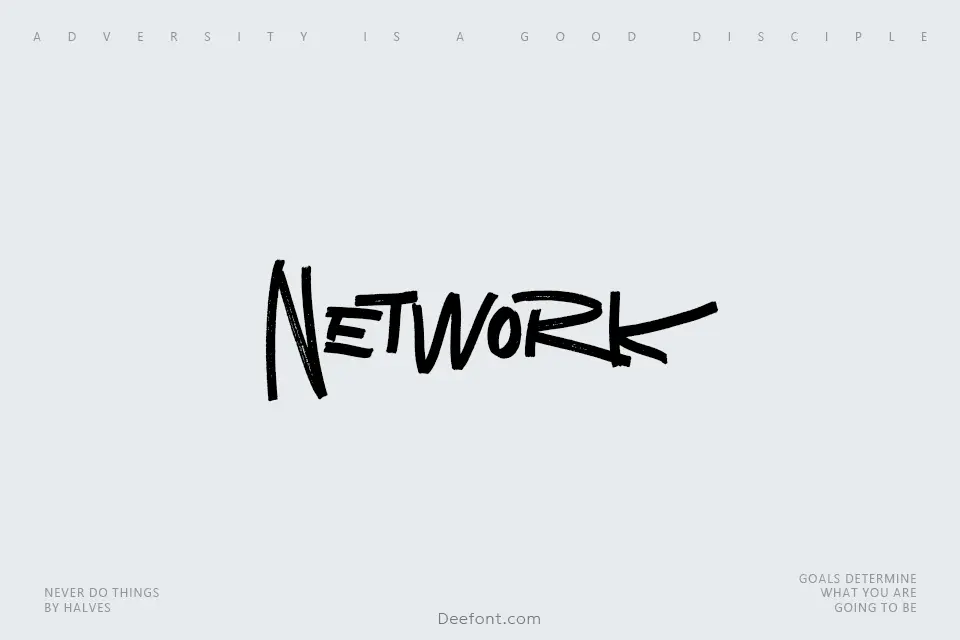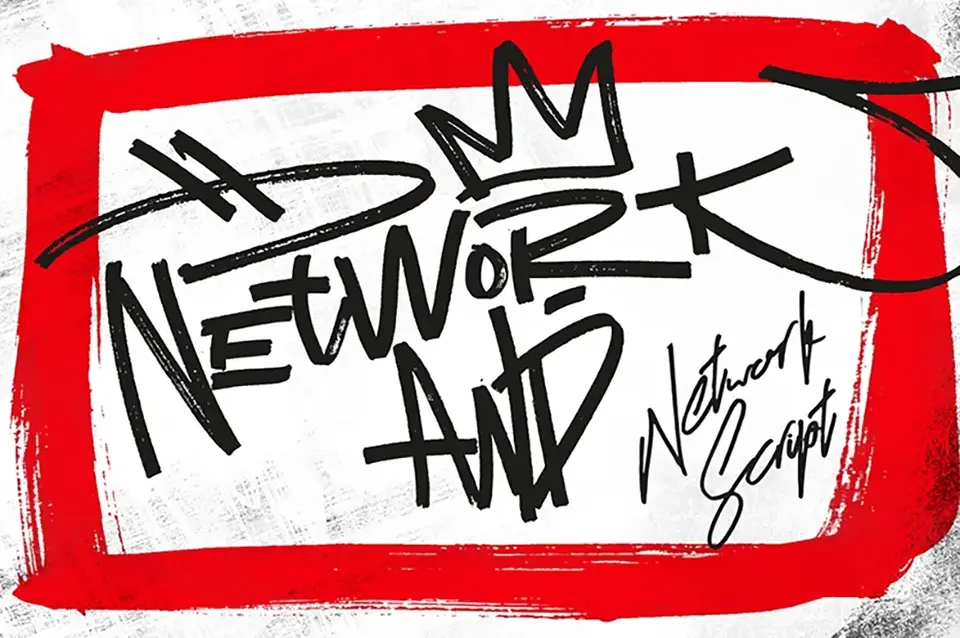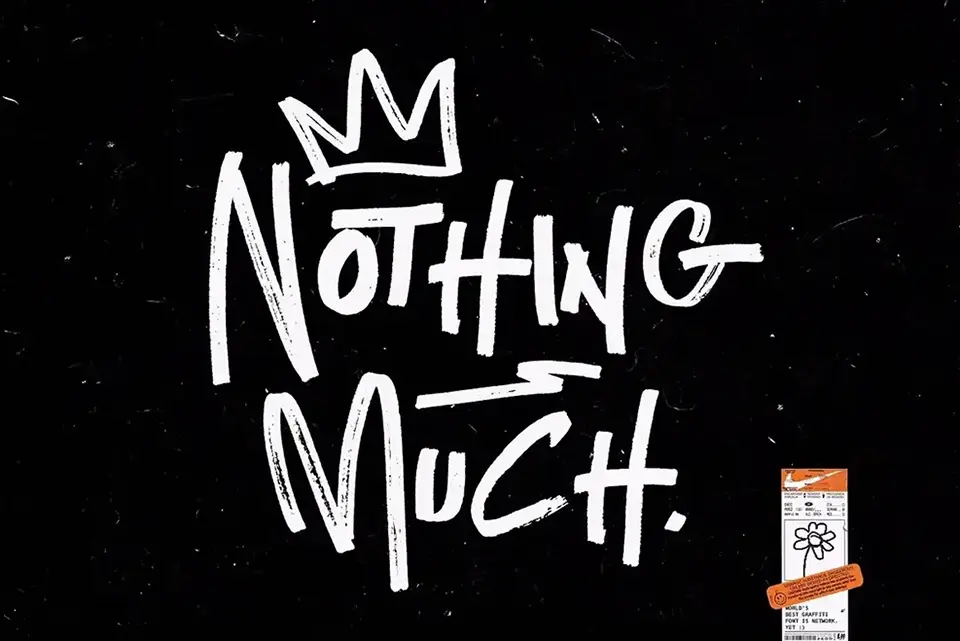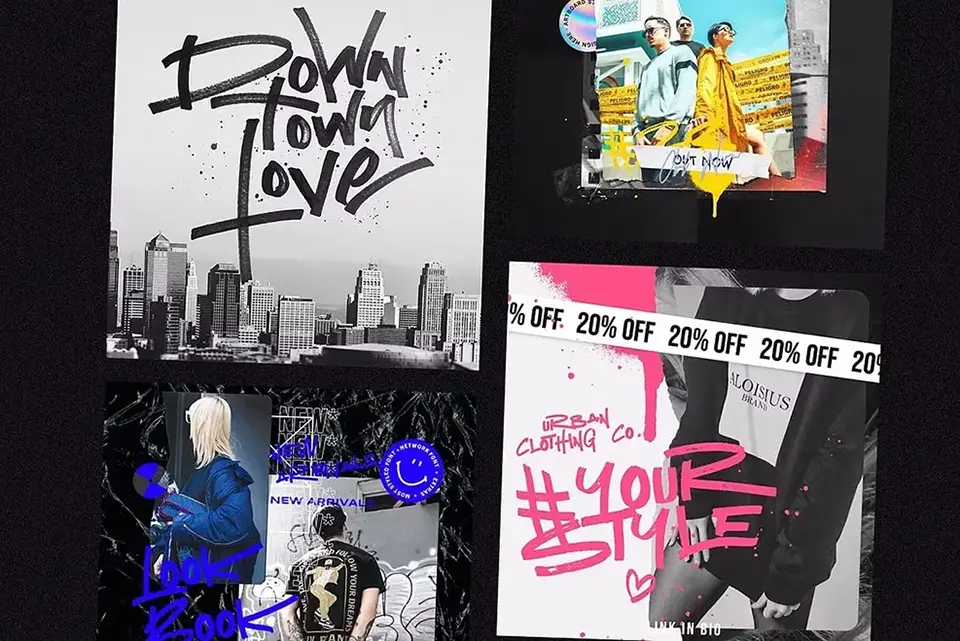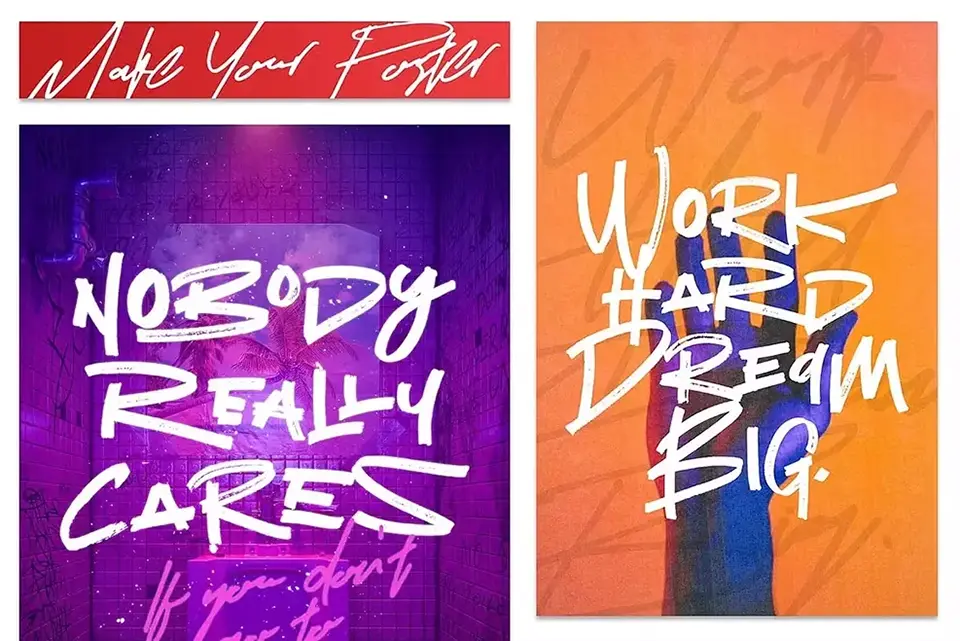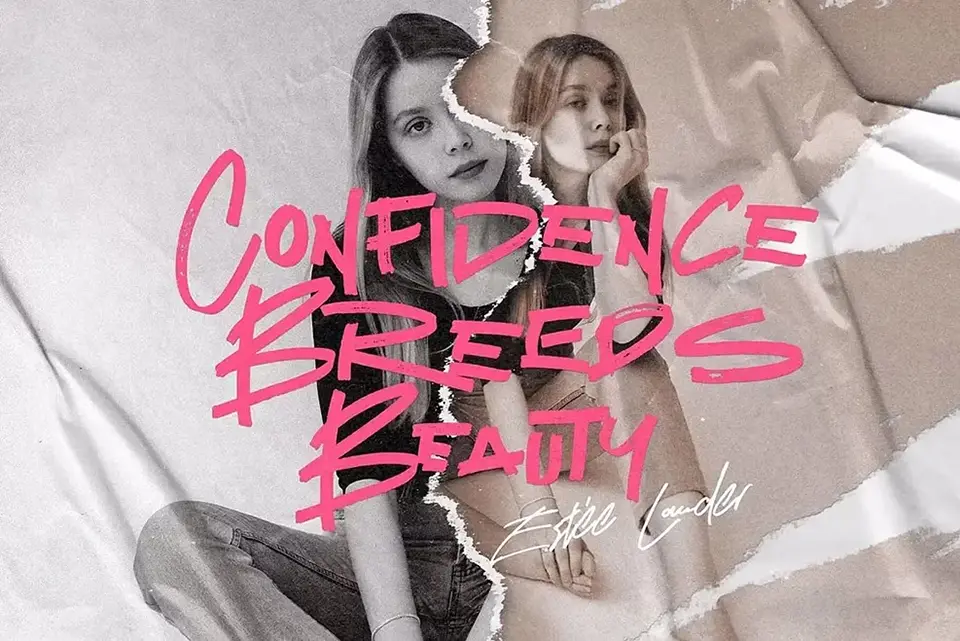
Network Font
Network Free Version is a distinctive graffiti and script-styled typeface created by acclaimed designer Yasir Ekinci. This versatile font combines contemporary urban design with smooth, flowing letterforms, making it ideal for creative projects, branding, and artistic typography. With its unique character and expressive nature, Network Font delivers bold visual impact for display and decorative applications. The free version includes 68 glyphs and offers a modern aesthetic perfect for designers seeking distinctive typography solutions.